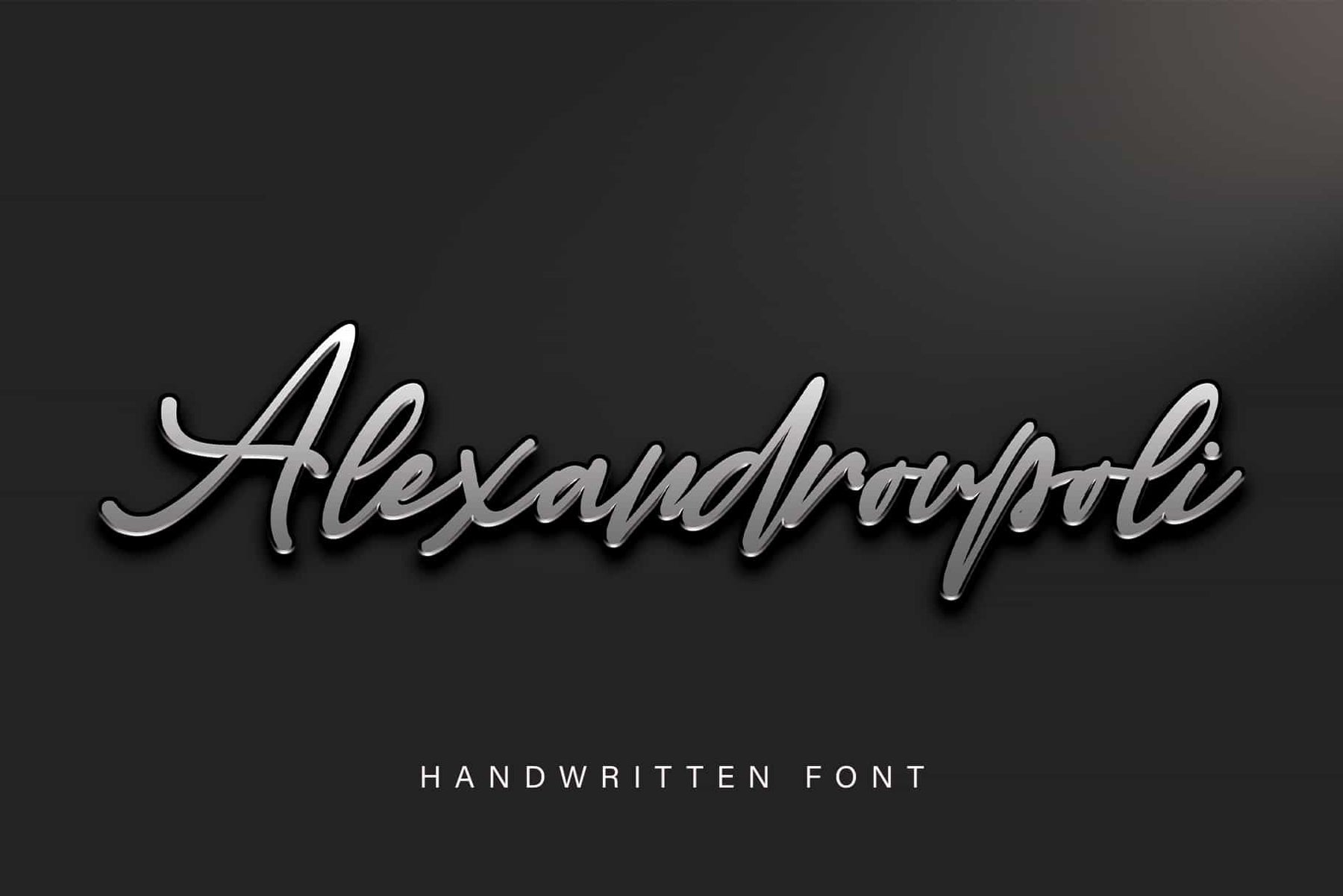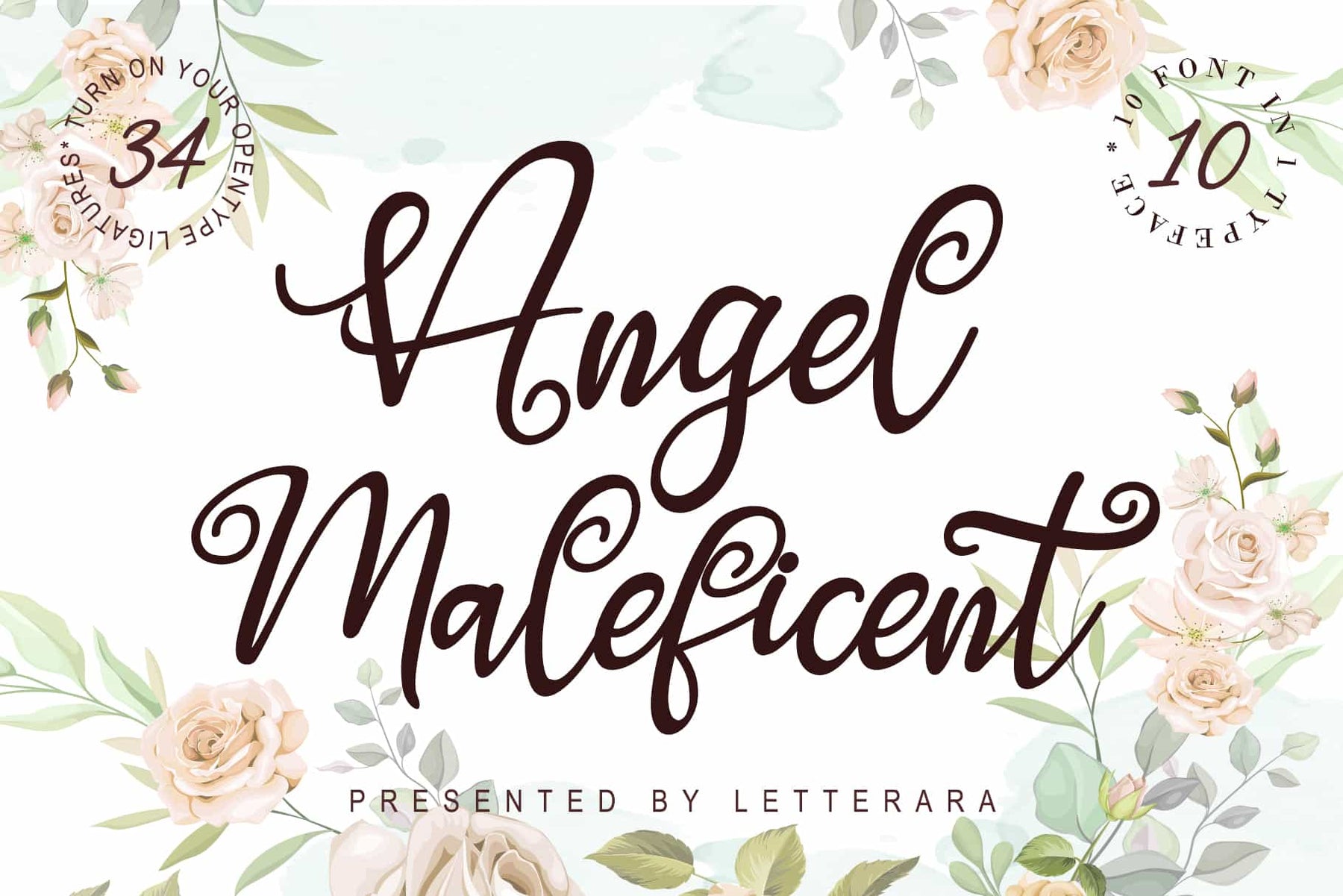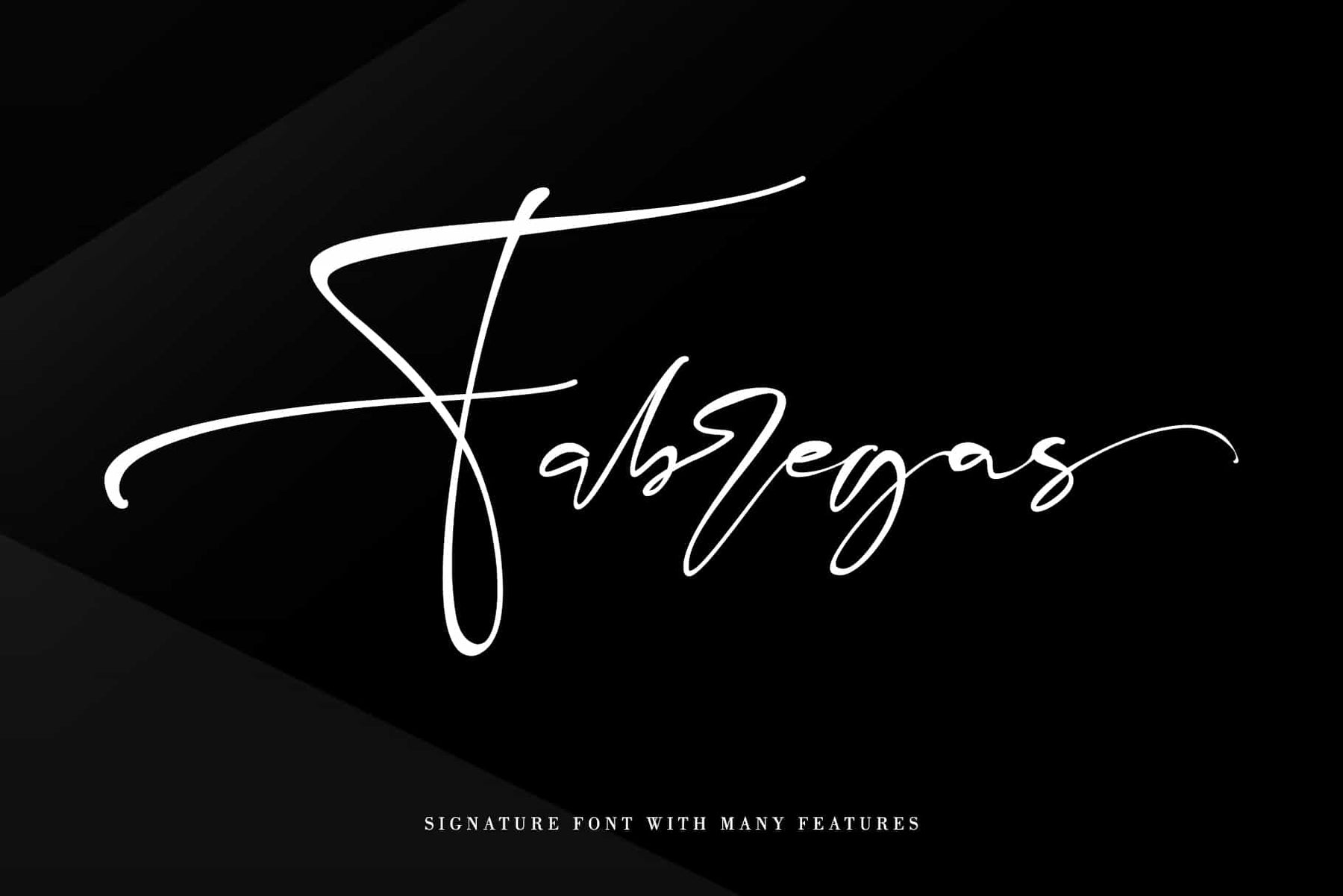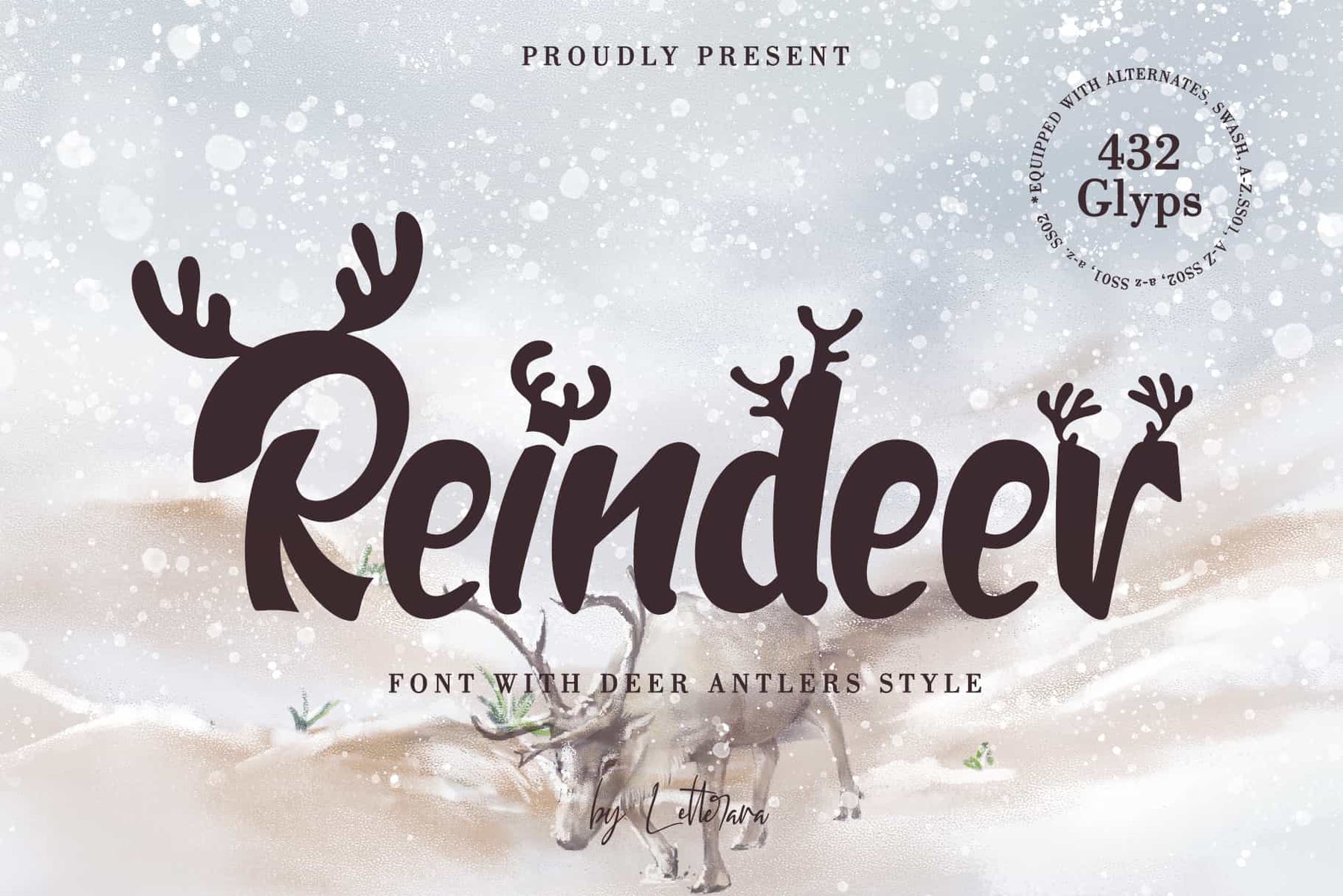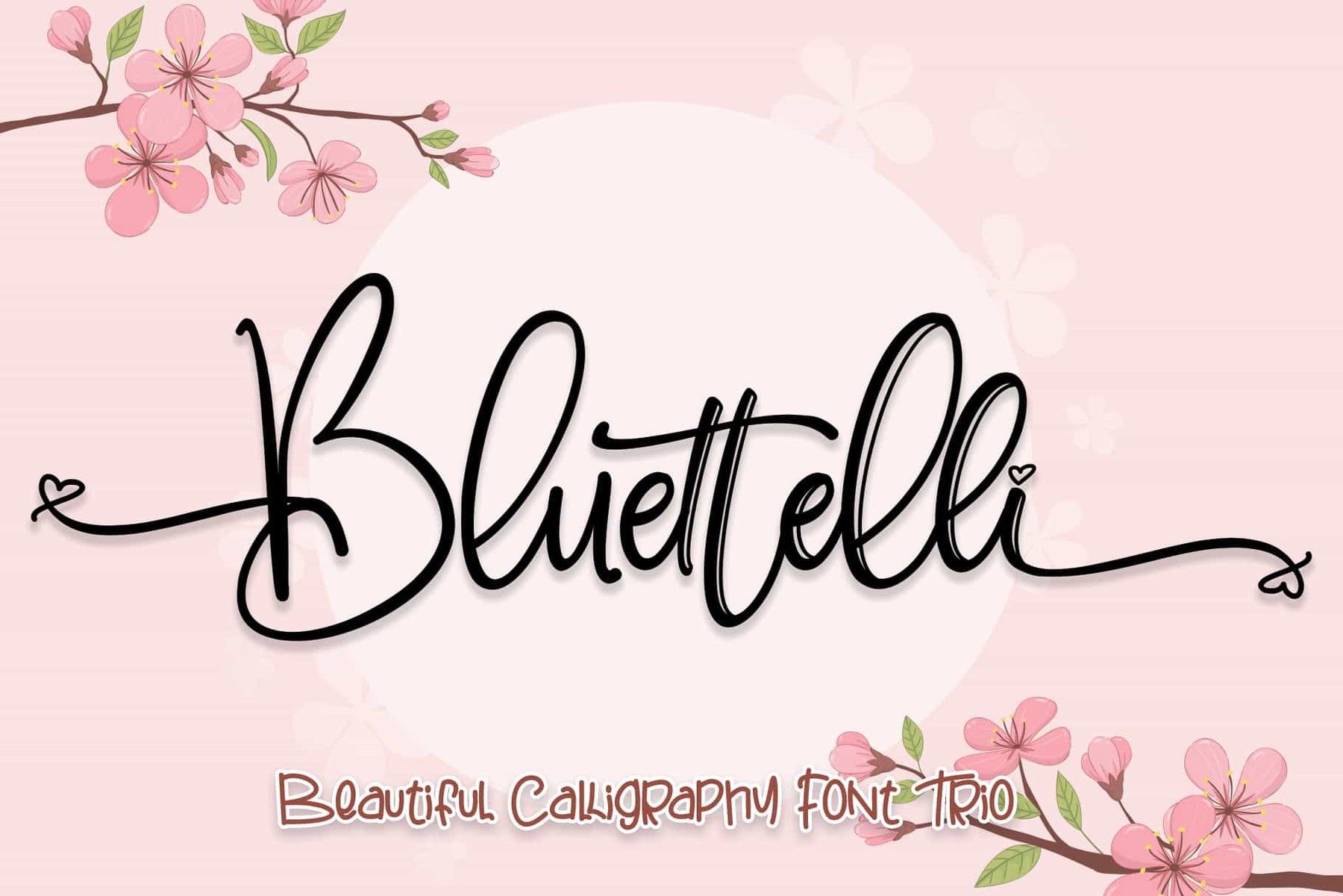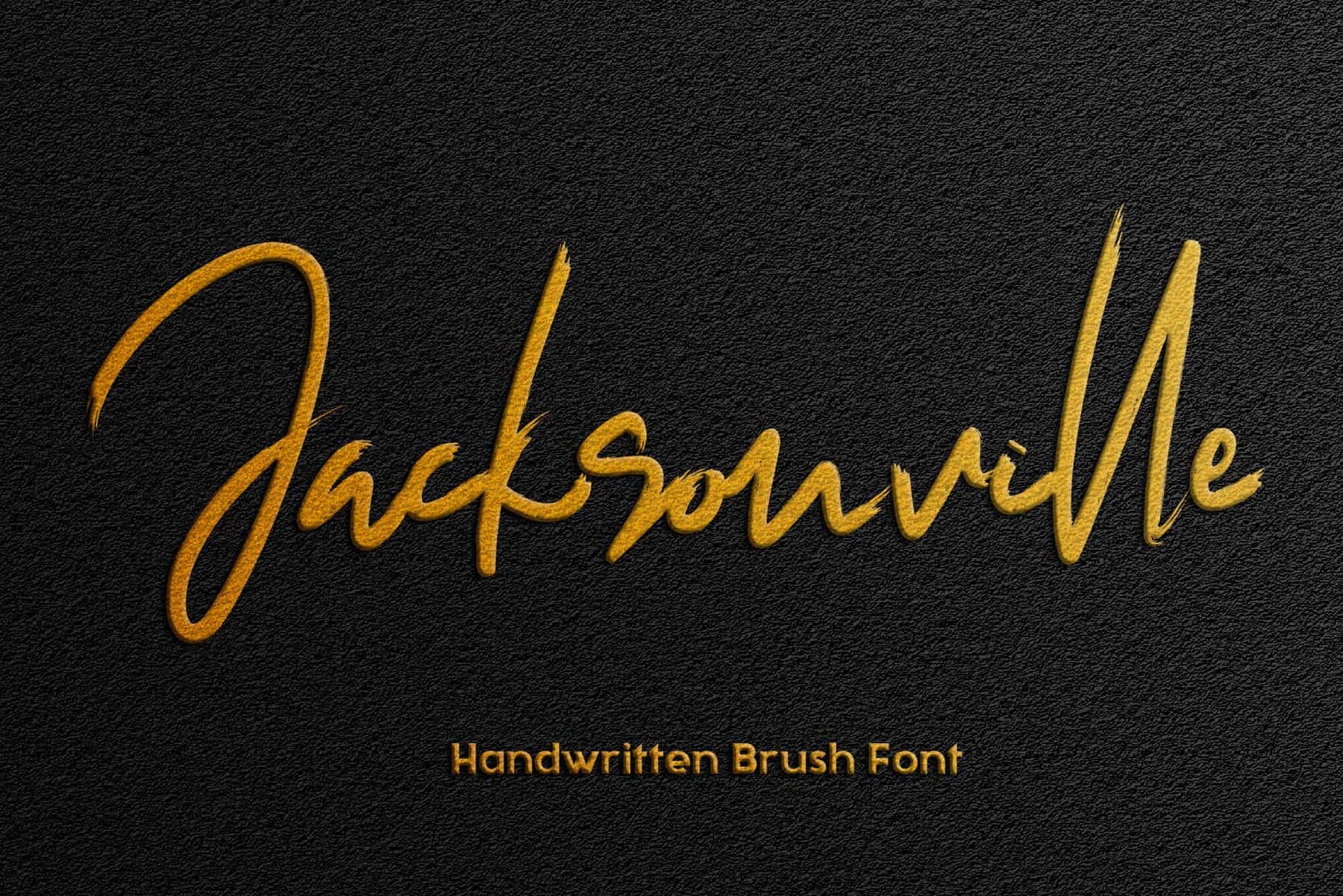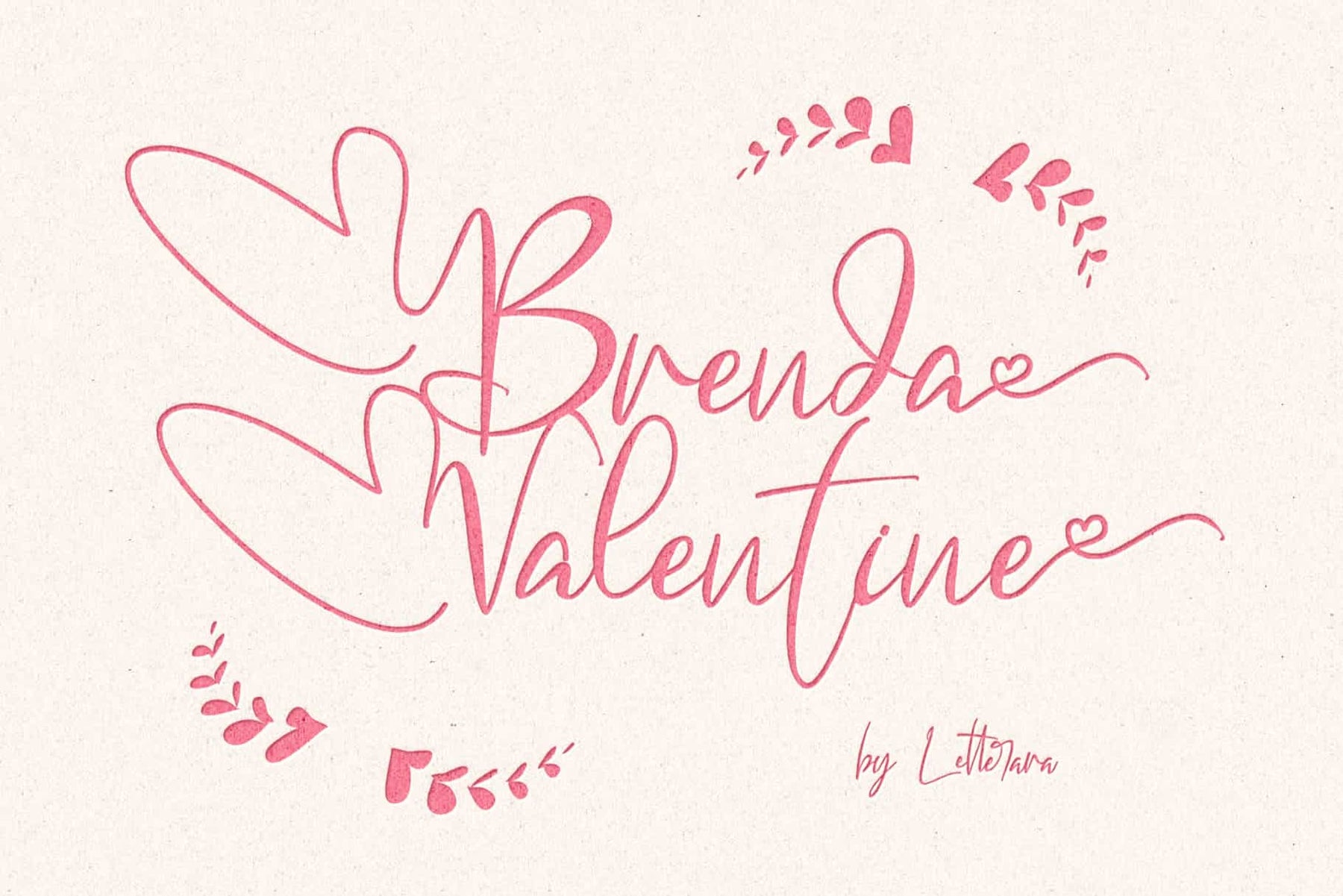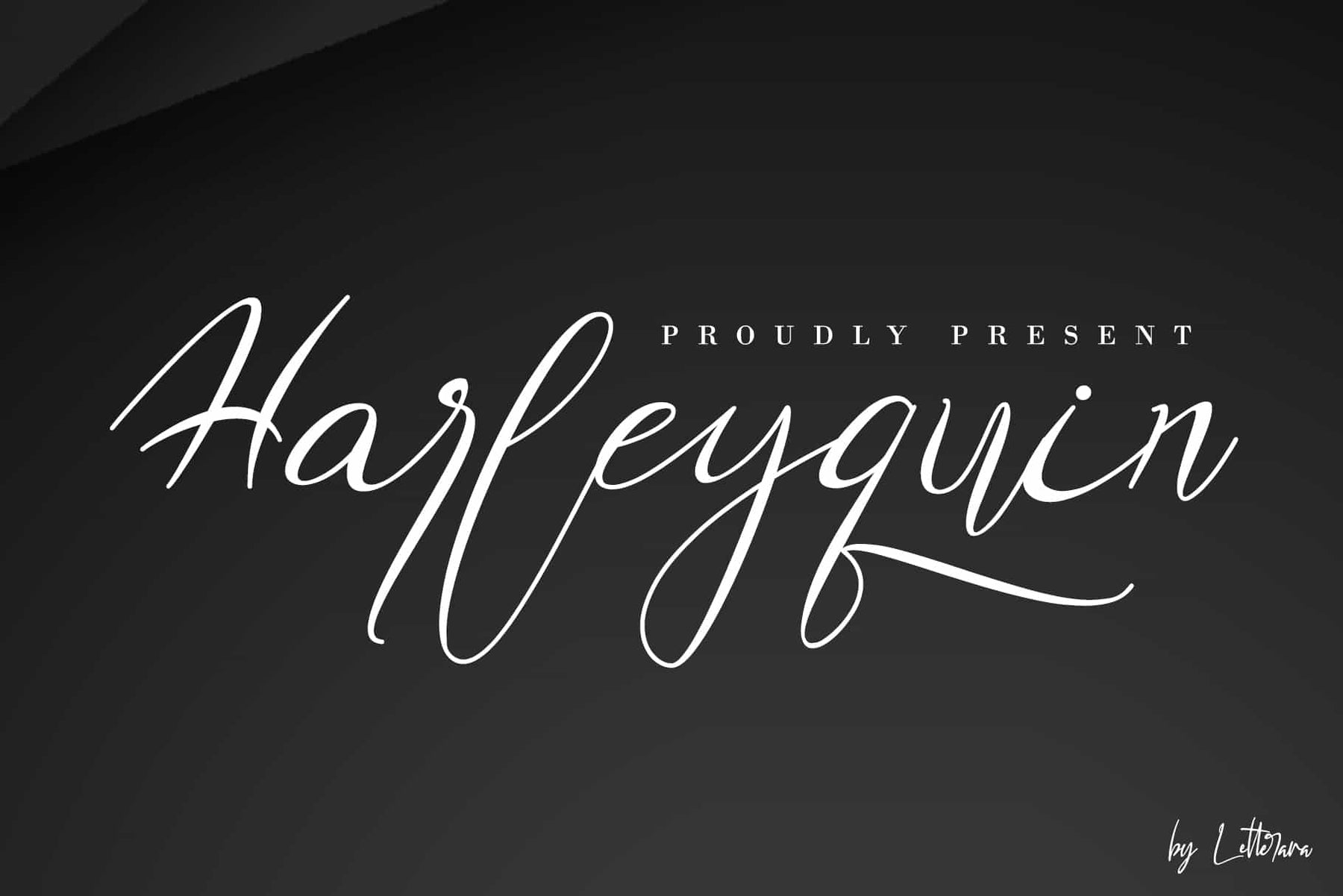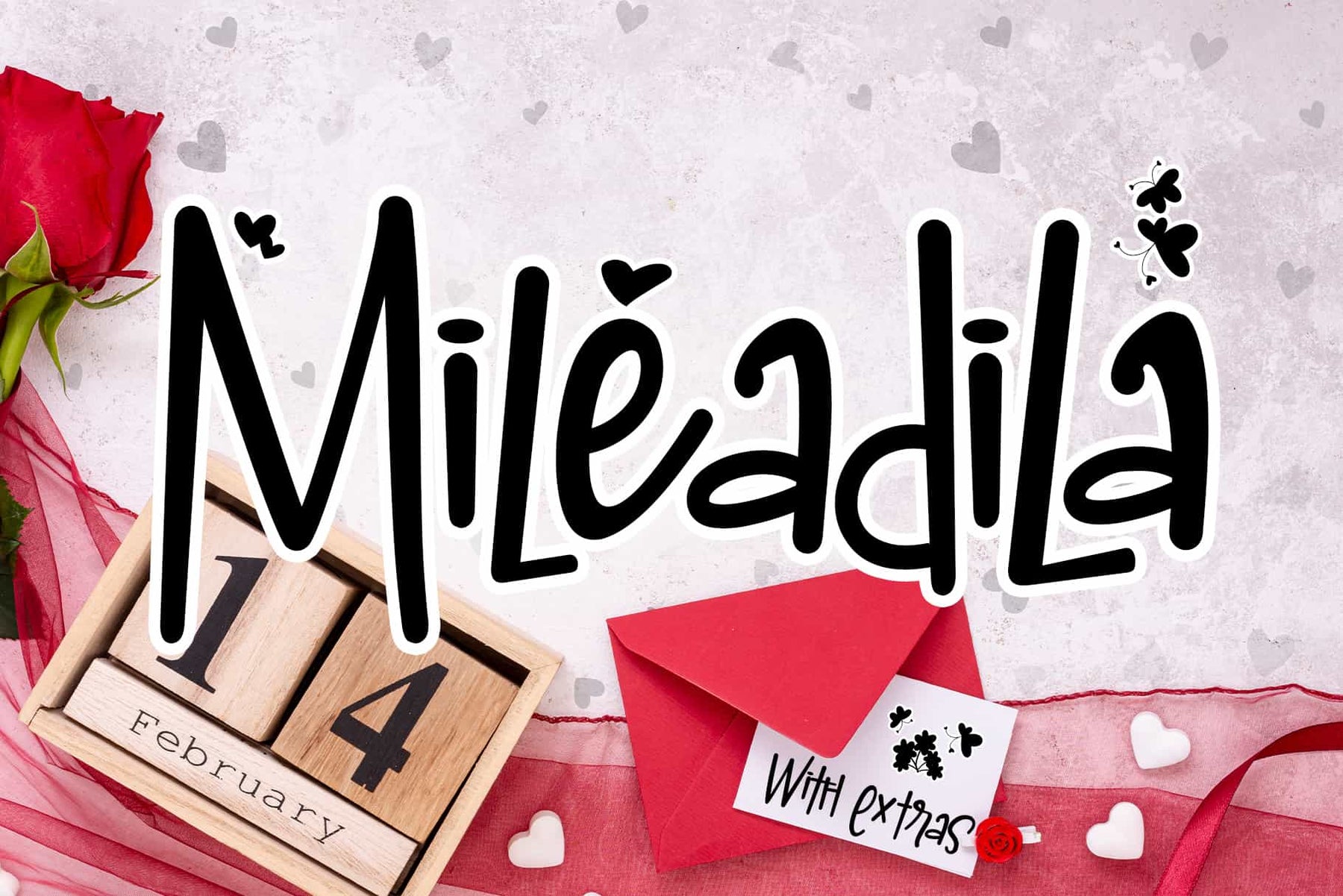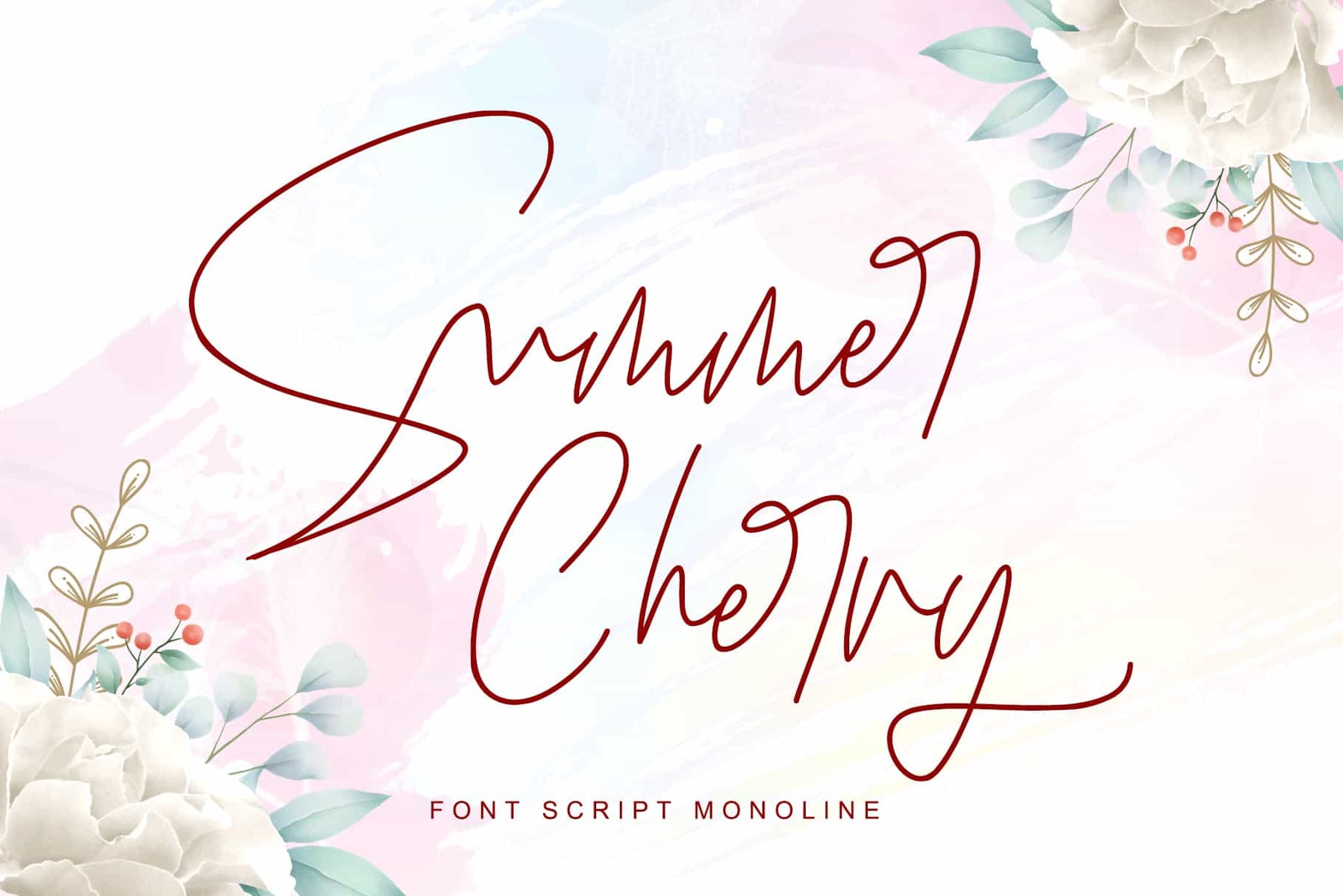
Fonts are one of the most essential elements of any creative design.
Choosing the perfect font is what makes your design stand out from others.
These hand-crafted fonts have various features such as alternates, swash, titling, and also supports multiple languages.
This Font bundle can be used for branding kits, headings, signatures, logos, writing blogs, designing wedding invitations, t-shirts, letterheads, merchandise, signage, labels, news, posters, badges, and more!
Highlights:
- 62 Beautiful Hand-crafted Fonts
- Tons of different design styles such as alternates, swash, titling, etc.
- The fonts have multilingual support
- Perfect for branding kits, headings, signatures, logos, writing blogs, designing wedding invitations, t-shirts, letterheads, merchandise, signage, labels, news, posters, badges, and more!
Fonts Included In This Bundle:
- Adventure Dreamer Font Family
- Alexandroupoli Font
- Alleluya Font
- Anderson Silva Font
- Andora Font
- Angel Maleficent Font
- Angelin Font
- Antika Font
- Art Maria Font
- Assinatura Font
- Aurora Font
- Backstreet Font
- Beautiful Kisses Font
- Bestowens Font Family
- Black Pink Font
- Black Pink Summer Font
- Bluebell Font
- Bluettelli Font
- Brenda Valentine Font
- Brigitta Font
- California Street Font
- Easter Sunday Font
- Fabregas Font
- Faithe Font
- Fergitta Font
- Ferrero Rocker Font Family
- Fressia Font
- Galgadot Font
- Gamos Font
- Garbera Font Family
- Harleyquin Font
- Haruka Font
- Heanffe Font
- Heaster Font
- Hertina Font
- Hobenshaw Font
- Honey Bear Font
- Hong Kong Font
- Honnitta Font
- Jacksonville Font
- Jennie Font
- Kanaggawa Font
- Keraton Font
- Kristabelle Font
- Margareta Font
- Mariagata Font
- Mariosa Font
- Mileadila Font
- Onlyone Font
- Ramovia Font
- Rayya Font
- Reindeer Font
- Right Now Font
- Roberto Font
- Rosse Font
- Santeria Font
- Seoul Family Font
- Seronita Font
- Snowby Font
- Stefani Font
- Summer Cherry Font
- Welldone Font